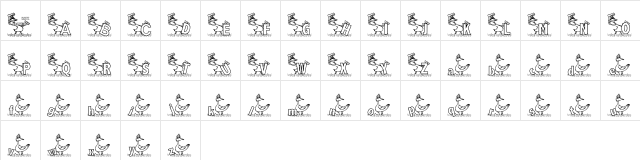
KG DUCKS2 Regular Font Preview
KG DUCKS2 Regular
Design Context for KG DUCKS2 Typeface
KG DUCKS2 is a composed and adaptable typeface that performs quietly and consistently across a wide range of design contexts.